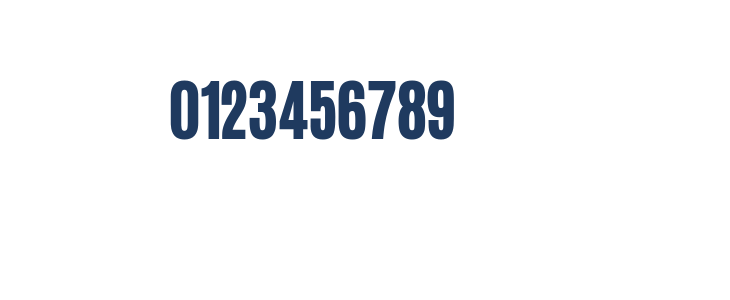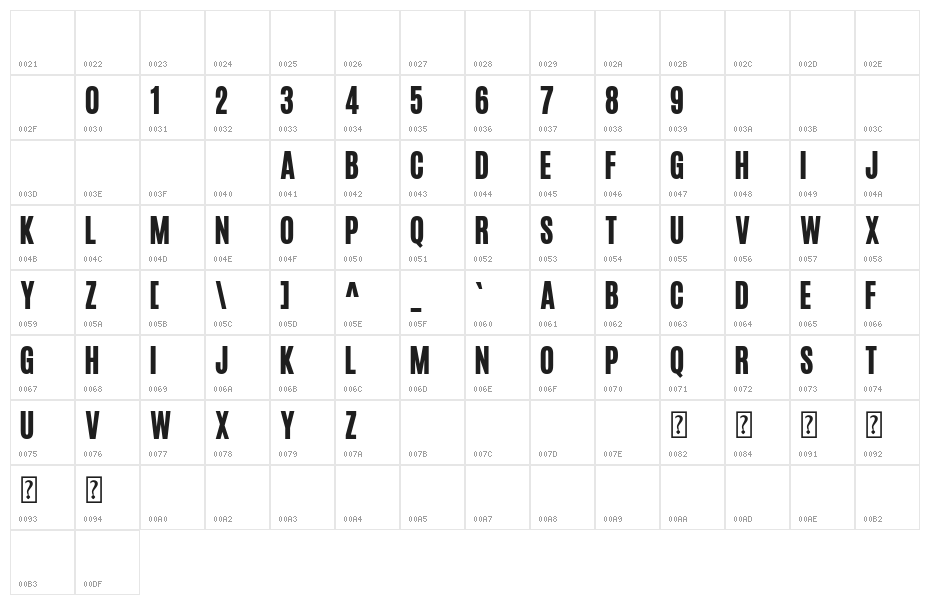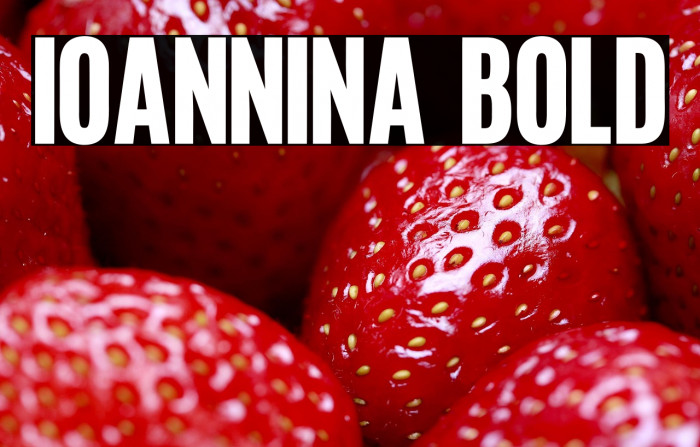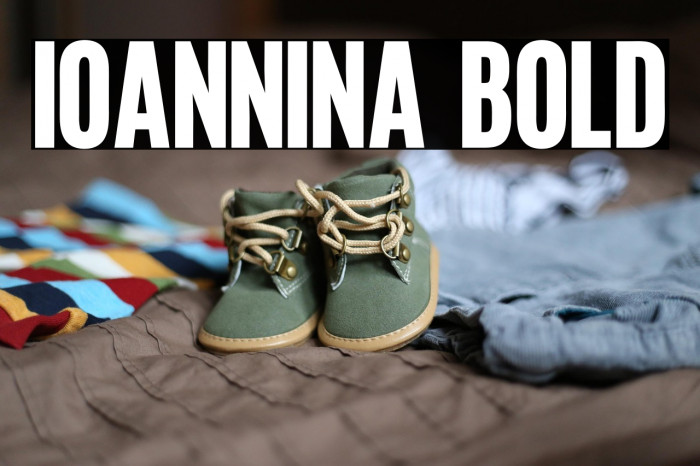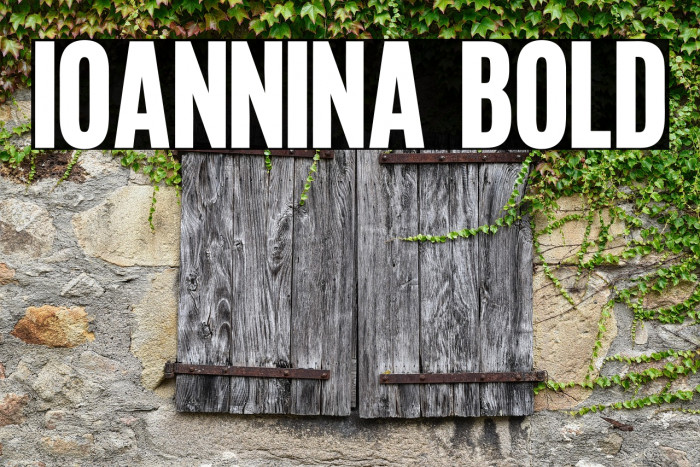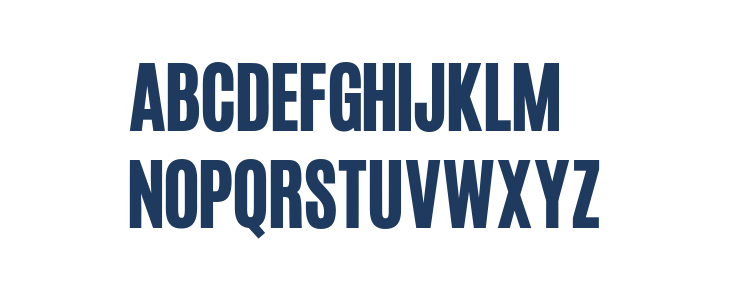
Ioannina Bold Font
Ioannina Bold Description
This font is a bold, sans-serif typeface characterized by its strong, impactful presence. The letters are uniformly thick, providing a sense of stability and confidence. The uppercase and lowercase letters maintain a consistent height, contributing to a cohesive and balanced appearance. The numbers are equally bold, ensuring they stand out clearly. This font's design is straightforward, with clean lines and no additional embellishments, making it highly legible and suitable for a variety of applications. The overall look is modern and assertive, ideal for making a statement.
| Proposed Projects | Ideal for headlines, posters, branding, and any project requiring a bold statement. |